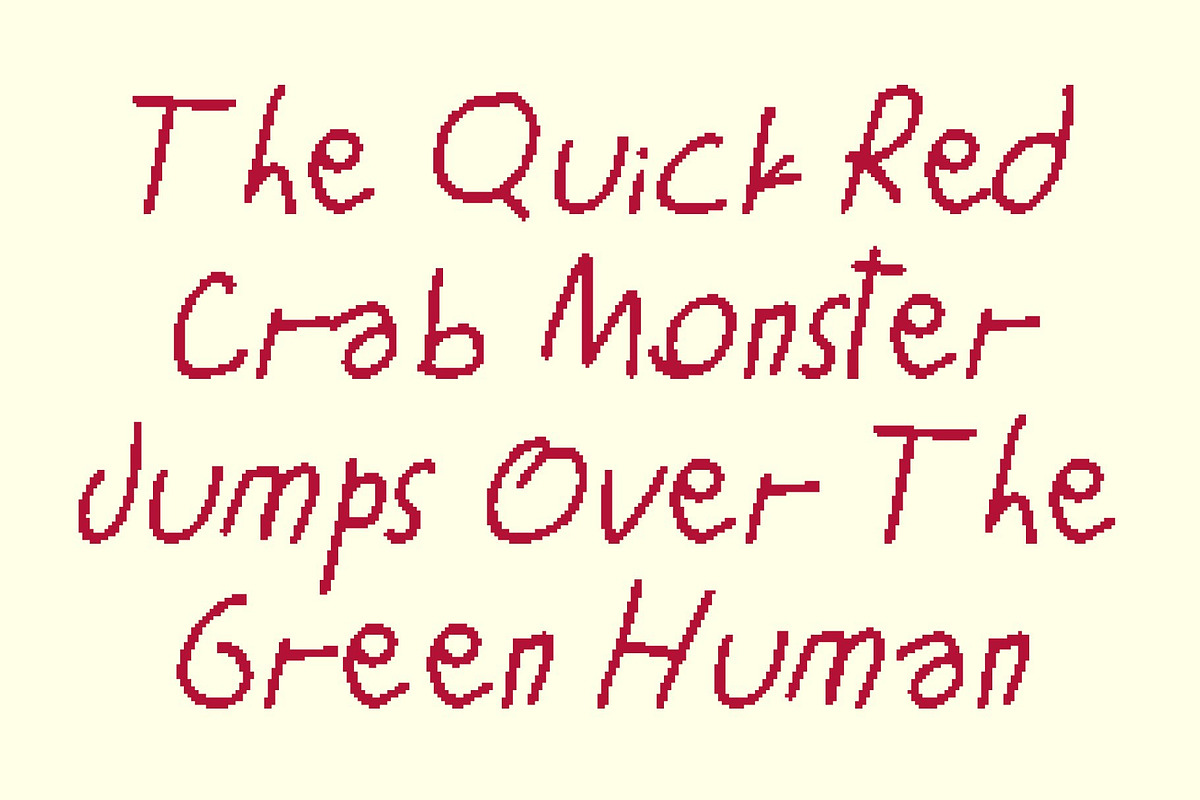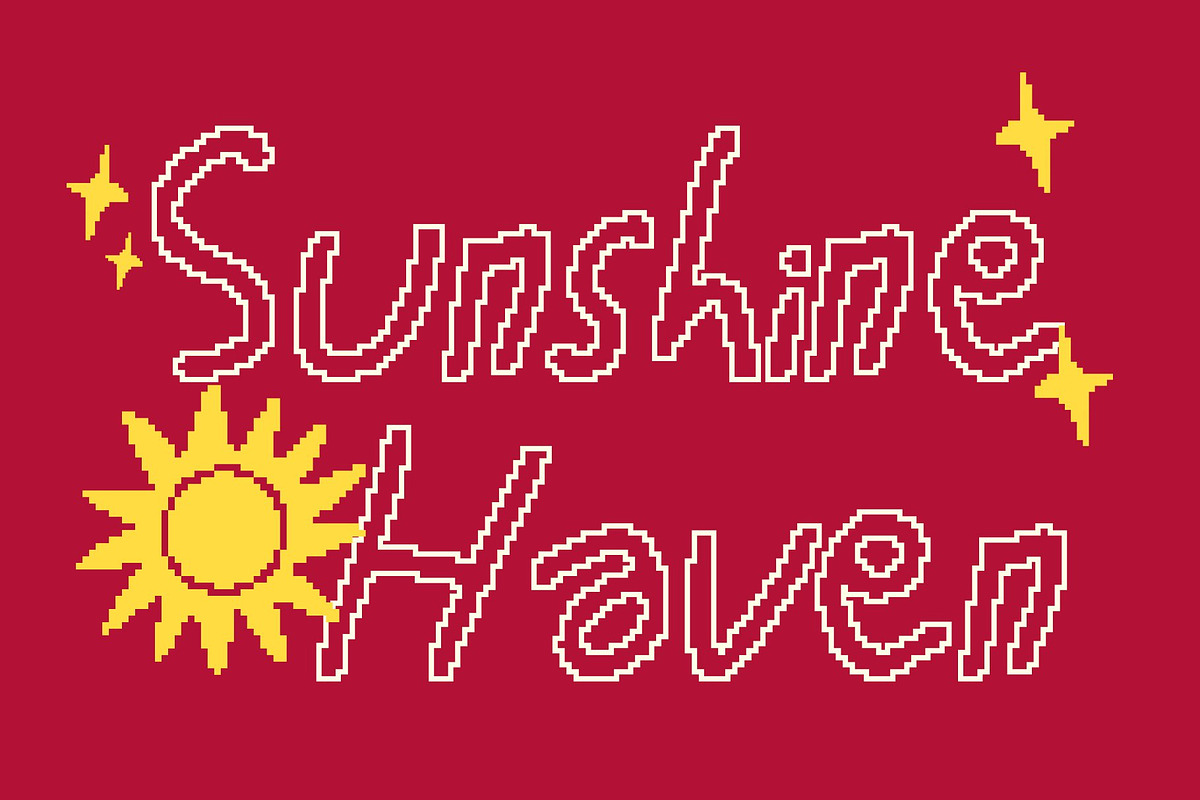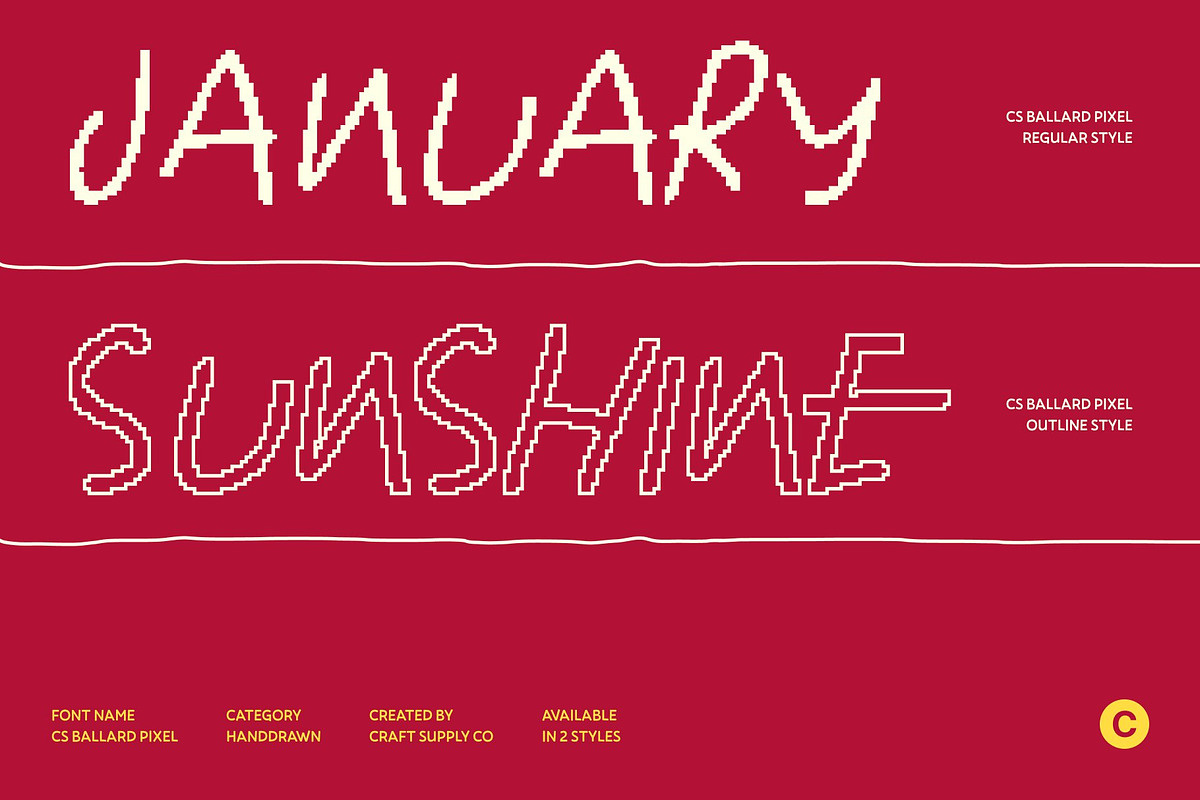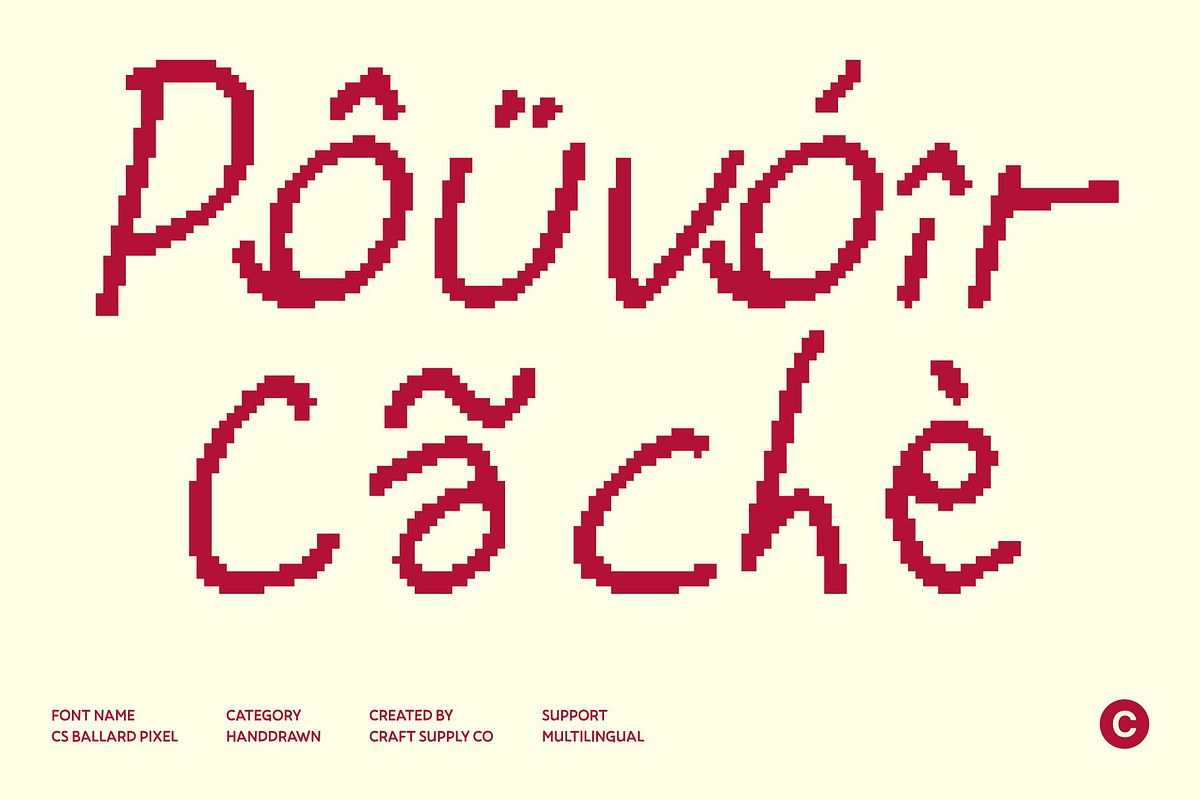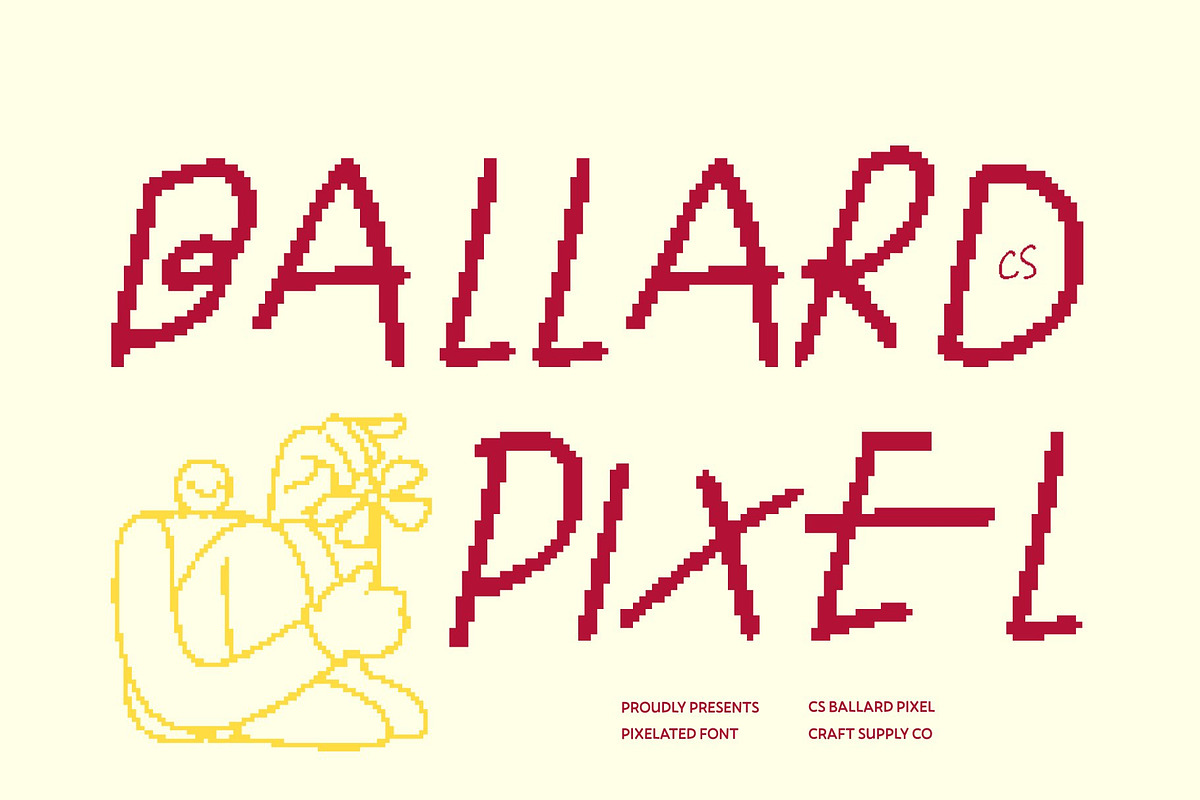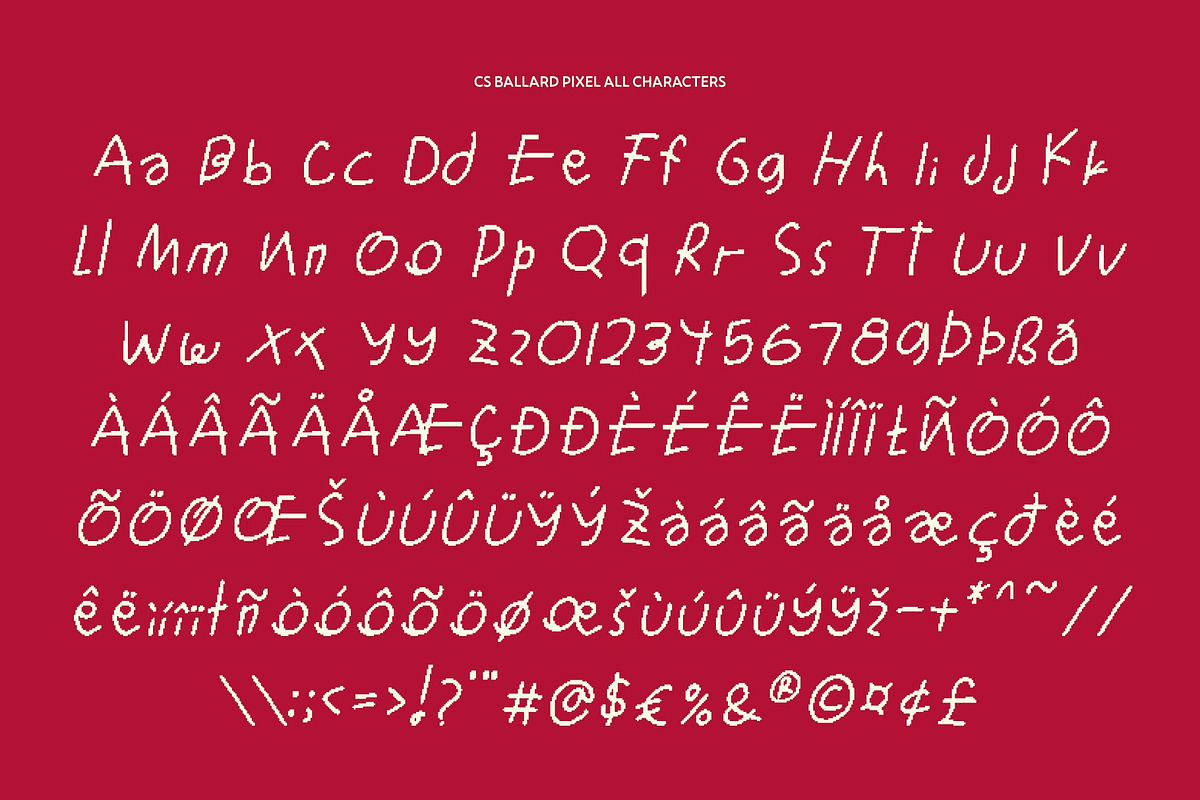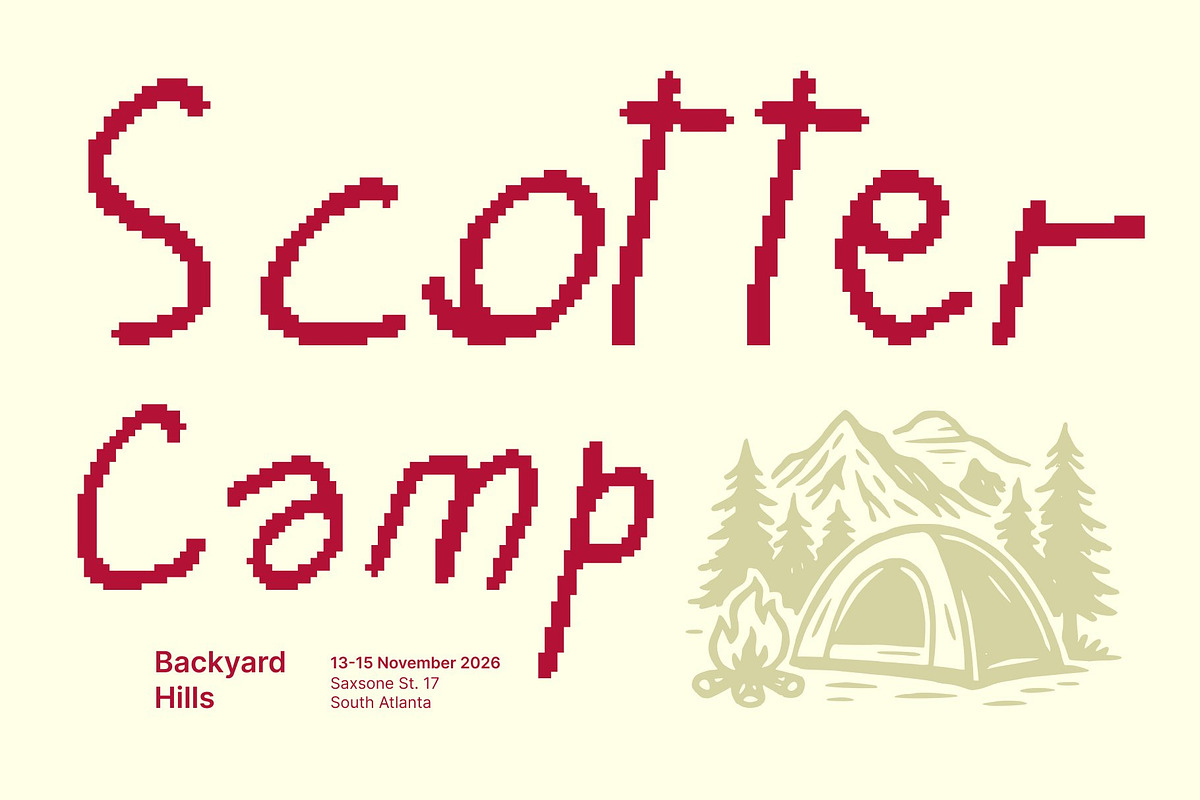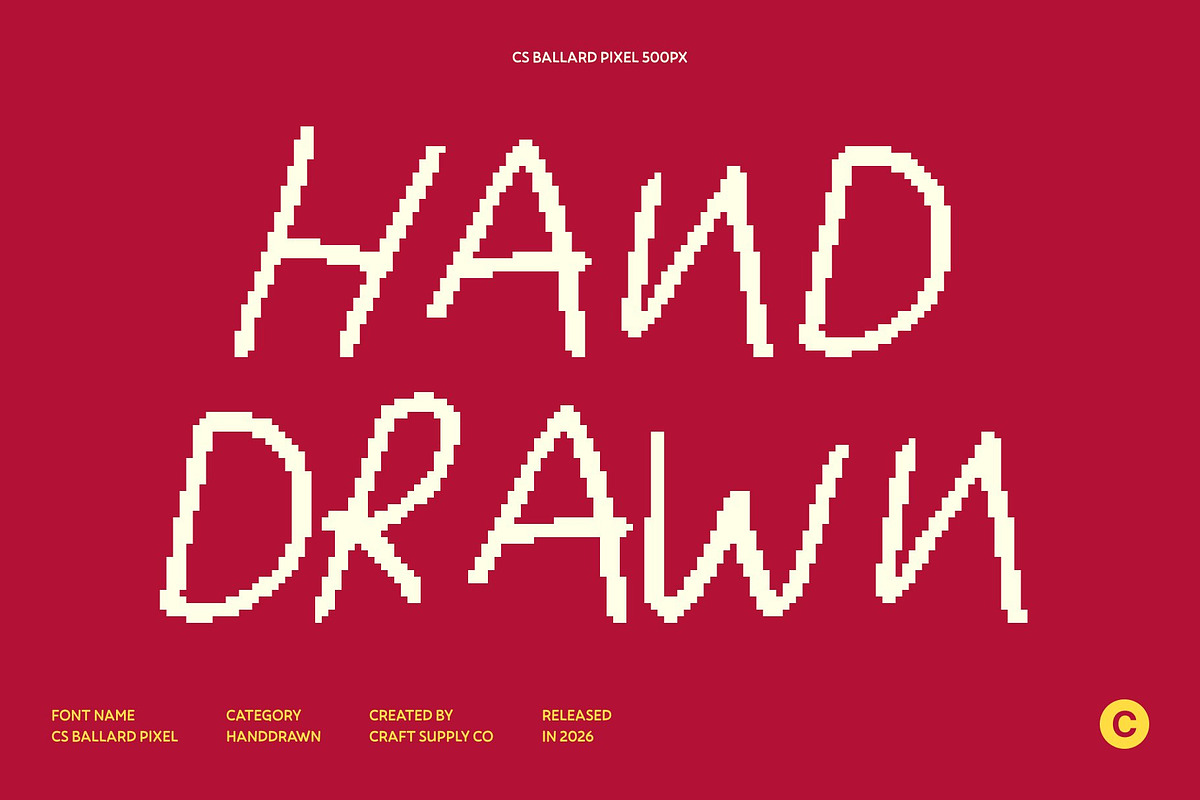
CS Ballard Pixel
CS Ballard Pixel – The Beauty of Chaos in Handwritten Form
Messy Handwritten Style with Pixel Attitude This is a gritty yet stylish messy handwritten font that celebrates imperfection, spontaneity, and creative freedom. Its freely scribbled letterforms are enhanced with subtle pixel details, giving the font a unique blend of raw hand-drawn expression and retro digital character. The result is playful, energetic, and full of visual personality.
Irregular Strokes with Retro Digital Charm Each character is built from uneven strokes and unpredictable movement, mimicking natural handwriting while embracing pixel-style construction. This combination creates an authentic, chaotic rhythm that feels expressive and alive. The pixel influence adds a nostalgic 8-bit touch, transforming messy handwriting into something that feels both old-school digital and creatively modern.
Playful, Expressive, and Full of Character The messy pixel style radiates joy, creativity, and approachability. It feels youthful and fun, making it perfect for designs that reject rigid precision in favor of personality. The imperfect forms give every word a sense of motion and warmth, helping designs feel more human and emotionally engaging.
Perfect for Fun, Creative, and Digital Projects This font works beautifully for kids’ graphics, playful posters, DIY-inspired packaging, casual branding, and digital content. Whether used in games, social media visuals, or creative merchandise, this font turns chaos into charm delivering a lively, expressive, and delightfully imperfect typographic experience.